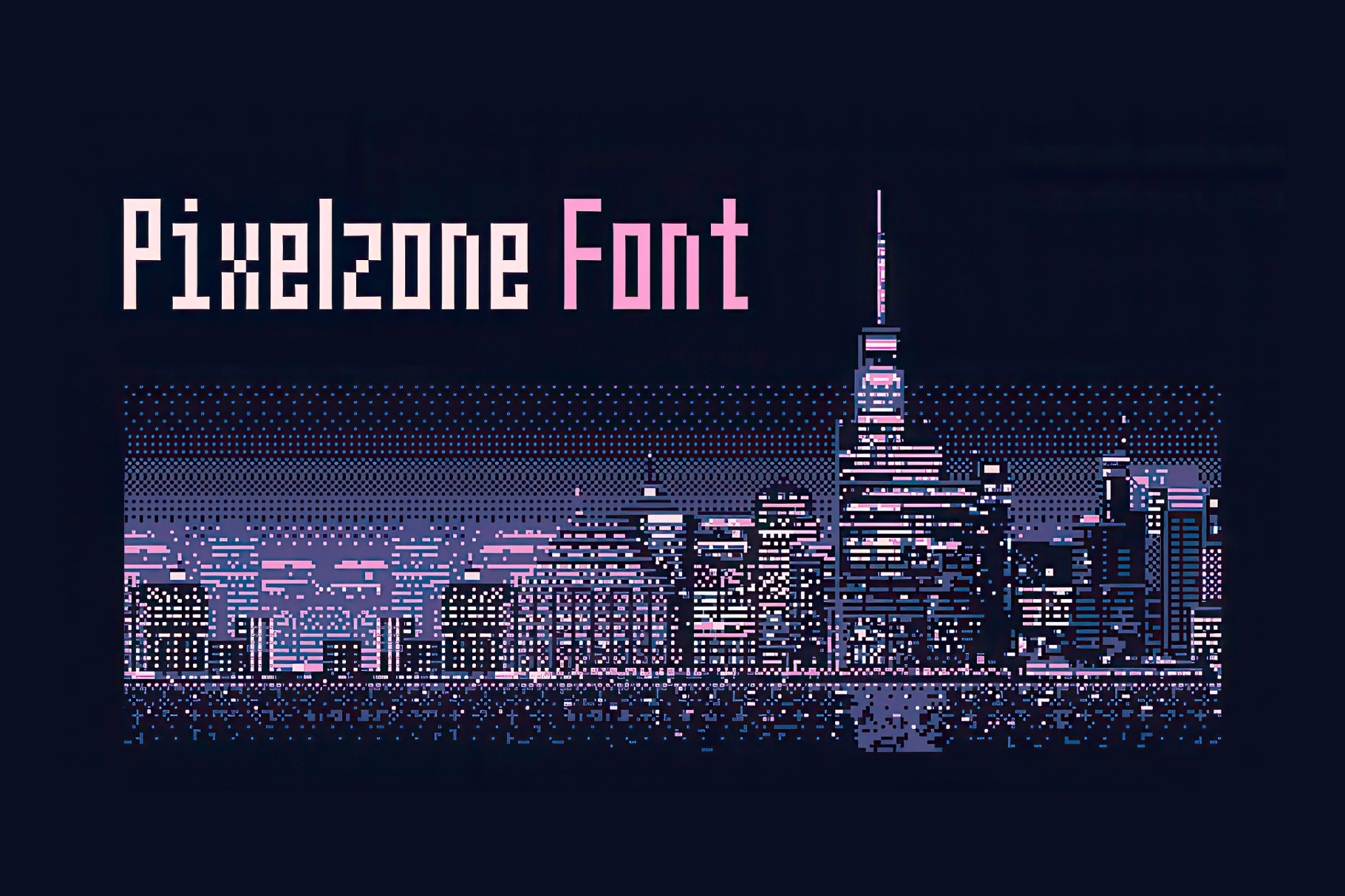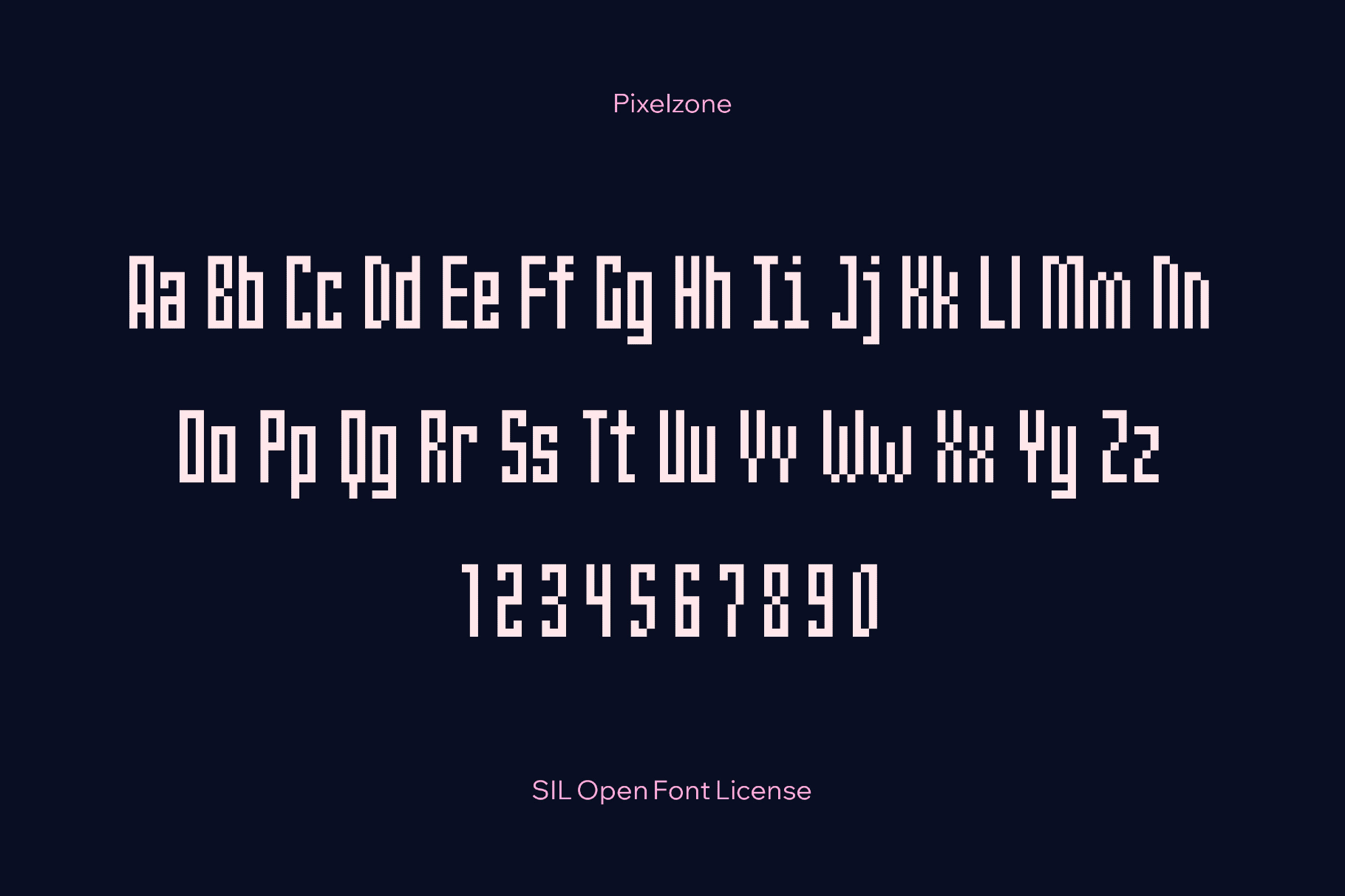
Pixelzone
Pixelzone is a condensed monospaced display with a strong 8-bit energy. Chunky strokes, narrow proportions, and sharp corners make it perfect for retro action interfaces, sci-fi or hacking HUDs, JRPG-style dialogue, menu systems, emulators, launchers, OS and software mockups, pixel-art posters, social assets, and dashboards
- Uppercase and lowercase letters, numbers, punctuation, symbols, extended mathematical symbols, metrics, and dingbats.
- Multilingual support across extended Latin, extended Cyrillic, and Greek scripts.